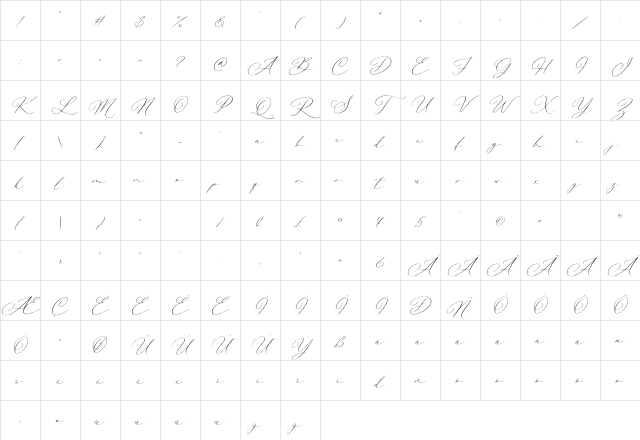
Complete La Belle DemoVersion Regular glyph index. Displaying only characters natively supported by La Belle DemoVersion Regular font.
La Belle DemoVersion is a composed and adaptable typeface that performs quietly and consistently across a wide range of design contexts.